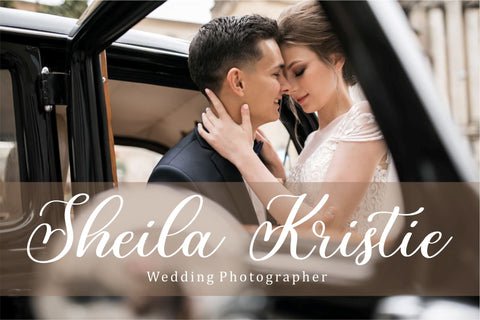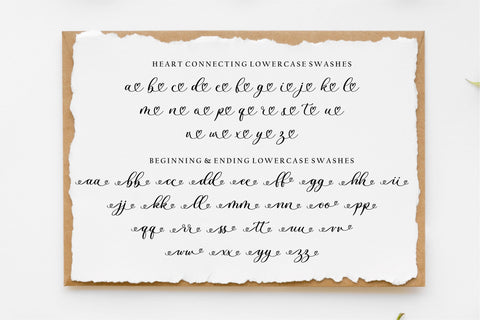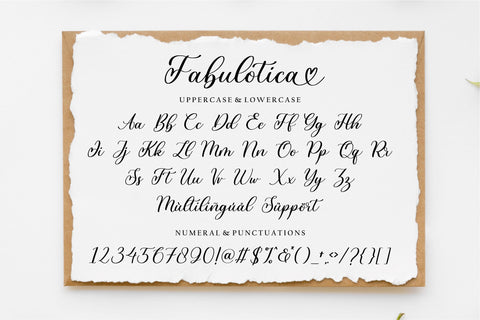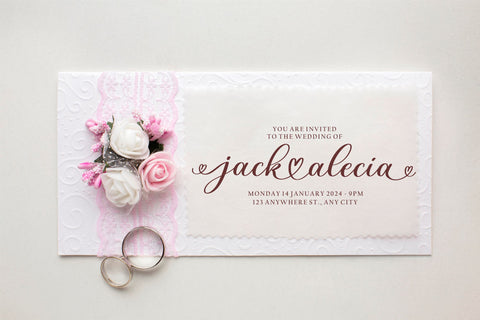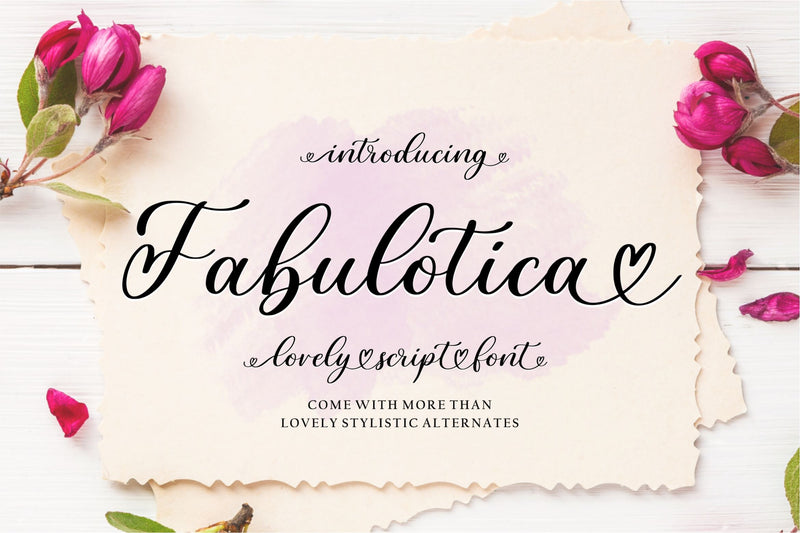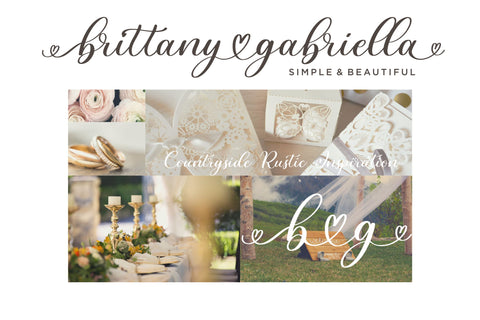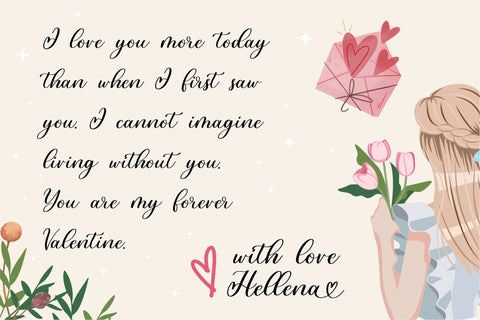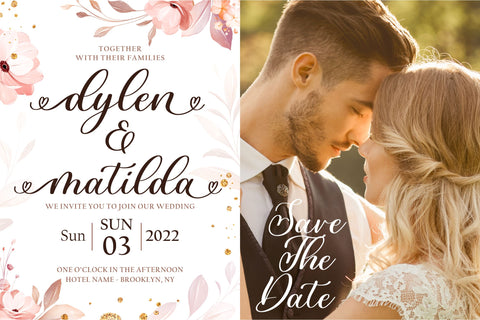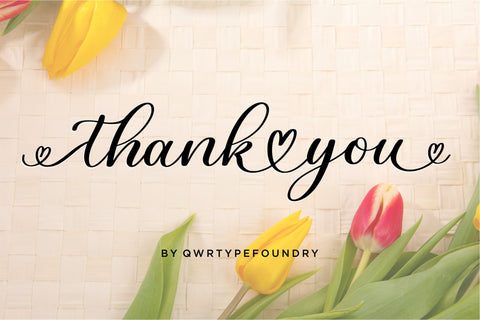
Fabulotica
Proudly Present, Fabulotica
Fabulotica is a Lovely Script Font
Fabulotica is perfect for product packaging, branding project, megazine, social media, wedding, or just used to express words above the background.